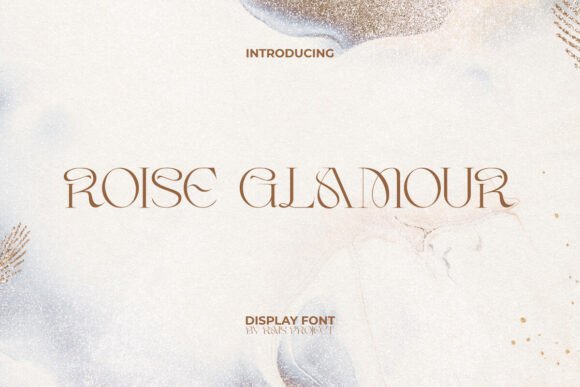
Roise Glamour: A Display Font for Elegance
In the crowded landscape of digital and print design, a single typeface can often be the deciding factor between a project that blends into the background and one that commands immediate attention. Roise Glamour is not merely a collection of letters; it is a visual statement that bridges the gap between contemporary minimalism and the ornate artistry of the past. This mesmerising display font captures a specific mood—luxury, sophistication, and timeless appeal—making it a powerful tool for those who need their work to speak volumes before a single word is read.
The aesthetic of Roise Glamour is defined by its dramatic, flowing swashes and high-contrast lines. These elements work in harmony to create an unmistakable sense of elegance. Whether you are designing a logo for a boutique or setting the headline for a magazine spread, this typeface offers a distinctive look that feels both curated and exclusive. It is designed to infuse any project with an immediate artistic flair, ensuring that the final result stands out as a work of art rather than just text.
Understanding the Design Philosophy
To appreciate why Roise Glamour resonates with so many creators, it helps to understand what makes it unique. Unlike standard sans-serif fonts that prioritize pure legibility at small sizes, Roise Glamour is a display font built for impact. Its character lies in the tension between clean, modern geometry and the sweeping, organic curves reminiscent of Art Deco or Victorian typography.
The high-contrast lines—where thick strokes meet delicate hairlines—add a dynamic rhythm to the text. This creates a visual texture that feels expensive and polished. The customized letterforms ensure that no two designs using this font look exactly the same, allowing for a high degree of personalization. For anyone looking to elevate their visual identity, understanding these nuances is the first step toward using the font effectively.
Why Different Audiences Value Roise Glamour
The appeal of Roise Glamour extends across a wide spectrum of users, from hobbyists experimenting with graphic design to seasoned professionals managing global brands. However, the value proposition shifts depending on the user's goals, skill level, and the nature of their projects.
For Entrepreneurs and Small Business Owners
For entrepreneurs launching a new venture, particularly in the fashion, beauty, or hospitality sectors, branding is everything. Roise Glamour offers a cost-effective way to achieve a premium look without hiring a custom type designer. A small business owner selling artisanal candles or operating a high-end salon can use this font on packaging, business cards, and social media graphics to instantly signal quality and distinction.
The priority here is often commercial value and presentation. The font acts as a silent salesperson, suggesting that the products behind the brand are elite and carefully crafted. By choosing a typeface with such strong character, small business owners can compete visually with larger corporations that have massive marketing budgets.
For Professional Designers and Creatives
Experienced designers approach Roise Glamour with a different set of priorities: flexibility, versatility, and reliability. They know that a display font must hold up under scrutiny when paired with other elements. For a professional working on editorial headlines or event invitations, the challenge is balancing the font's dramatic swashes with the overall layout.
Creatives appreciate the font because it solves a common problem: how to make a title feel luxurious without appearing cliché. The unique letterforms provide a fresh alternative to overused script fonts. Professionals might evaluate the font based on its kerning capabilities and how well the ligatures function in short phrases. When used correctly, it becomes a signature element in their portfolio, showcasing their ability to curate sophisticated aesthetics.
For Beginners and Hobbyists
Beginners and hobbyists often seek tools that are forgiving yet impressive. Roise Glamour fits this niche perfectly because its inherent beauty does a lot of the heavy lifting. Even if a user is still mastering alignment and spacing, the font's strong character ensures the final output looks intentional and stylish.
For someone creating invitations for a wedding, a birthday party, or a community event, the learning curve is low while the reward is high. The focus for this group is ease of use and creativity. They can experiment with different weights and pairings to see how the font transforms a simple message into something special. It serves as an excellent entry point into the world of typographic design, encouraging users to explore how type influences emotion.
For Marketers and Content Creators
Marketers and bloggers operate in an environment where attention spans are short. Their primary goal is engagement. Roise Glamour provides a visual hook that stops the scroll. In social media posts, blog headers, or email subject lines, the font's dramatic flair draws the eye immediately.
Ultimately, the decision to use Roise Glamour comes down to the story you want to tell. It is a font that demands confidence and clarity. When paired with the right imagery and layout, it transforms ordinary words into a memorable experience. Whether you are a freelancer looking to expand your toolkit or a business owner aiming to refine your brand voice, this typeface offers a pathway to immediate elegance and artistic distinction.